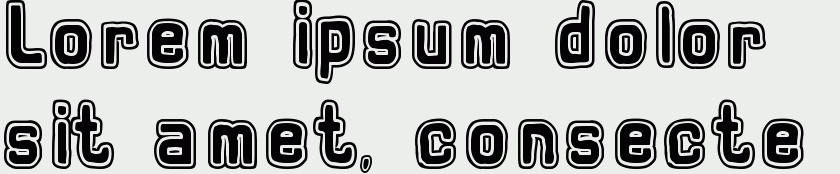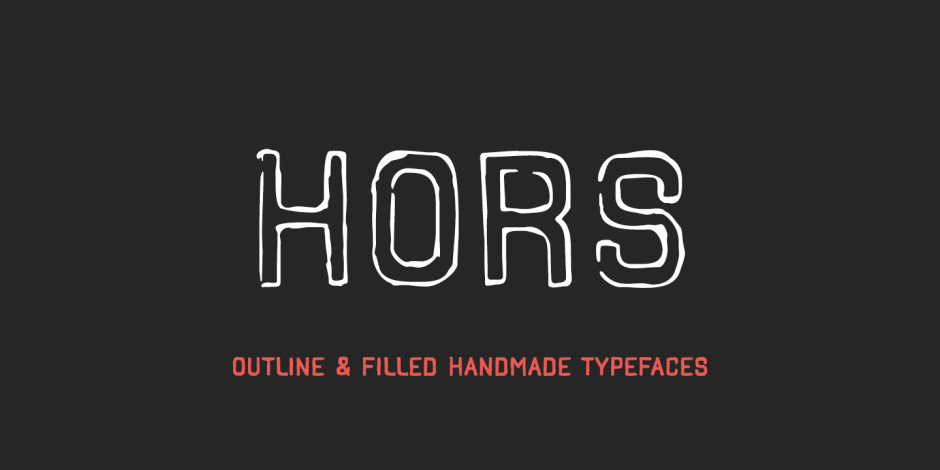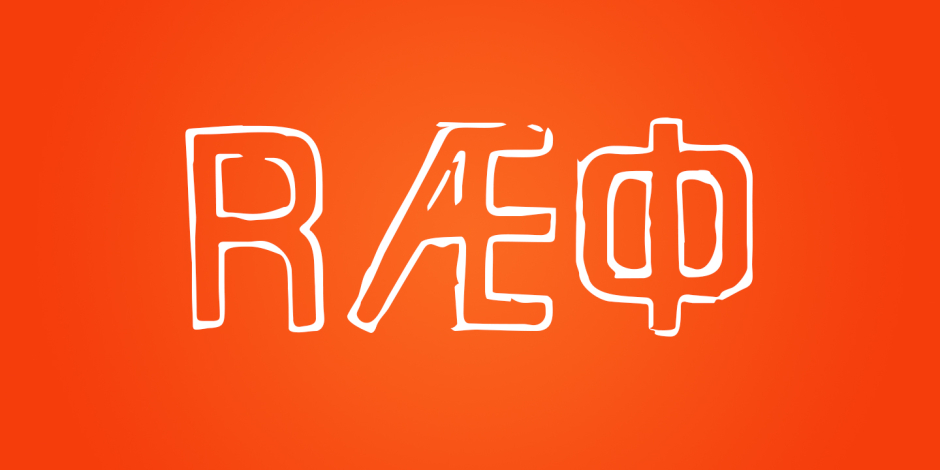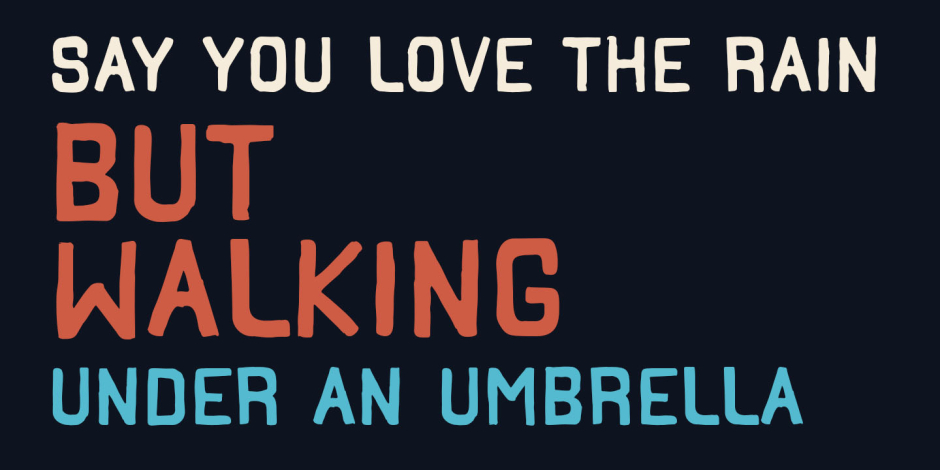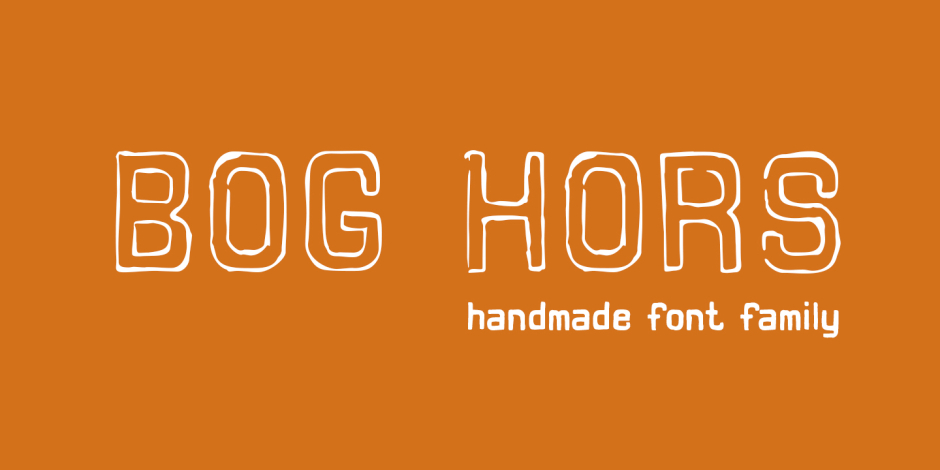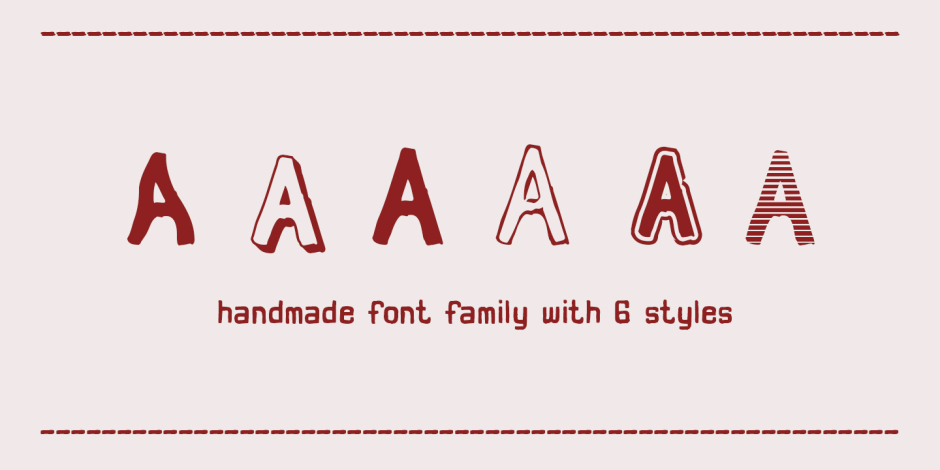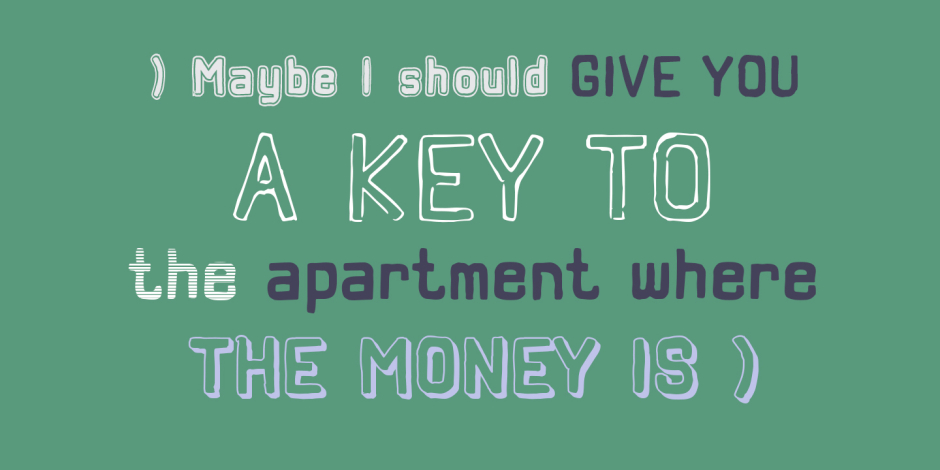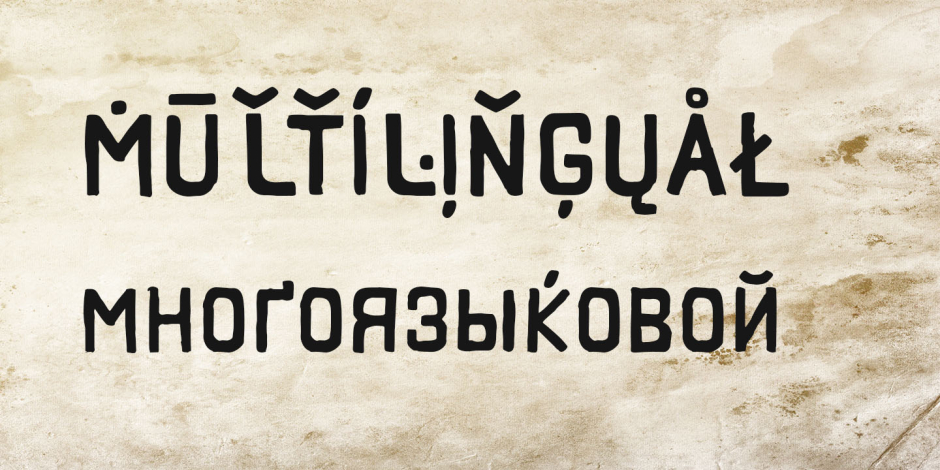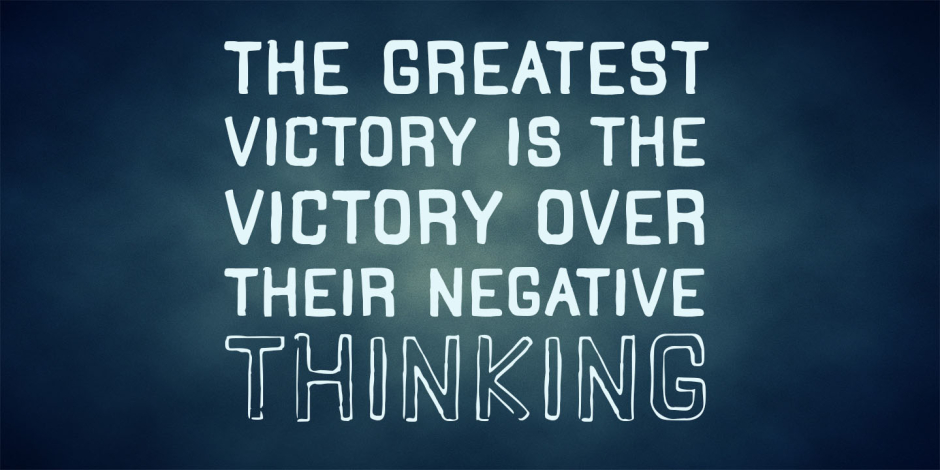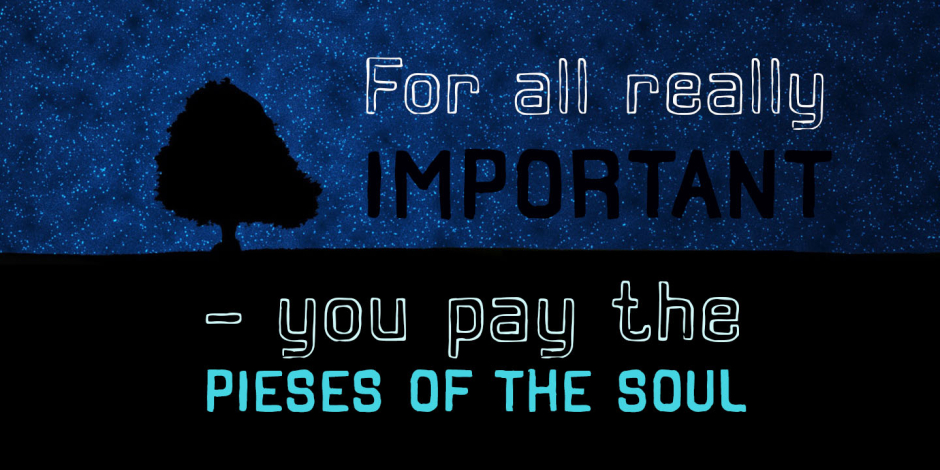
Hors
/ Hors Obvodka
Hors is a multilingual handmade typeface.
Hors gives active in the management of the Affairs, creative tendency and creative work, but in some circumstances a Hors gives people the cunning and penchant for adventure.
Hors rosy from the cold. It is dressed in a cool, but subtle colors.
2 styles: hollow and filled to create amazing compositions.
520+ glyphs
Euro & others
OT Features: Oldstyle Numerals, Tubular Numerals, Localized Forms, Fracrions, Subscript and Supscript, Ordinals, Slashed Zero etc.
Latin, Central European, Cyrillic, Baltic, Turkish and others...